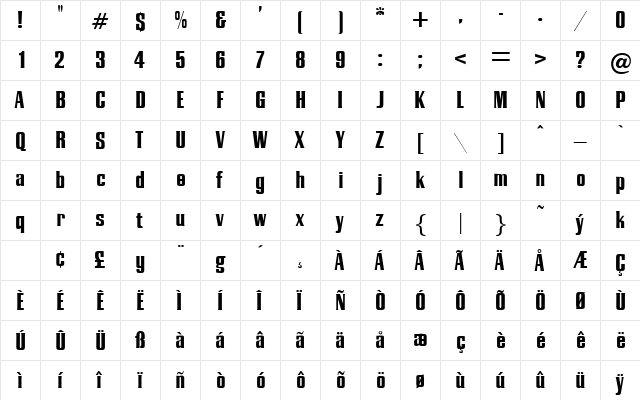
Essex DB Regular
Design Context for Essex DB Typeface
Essex DB is a composed and adaptable typeface that performs quietly and consistently across a wide range of design contexts.